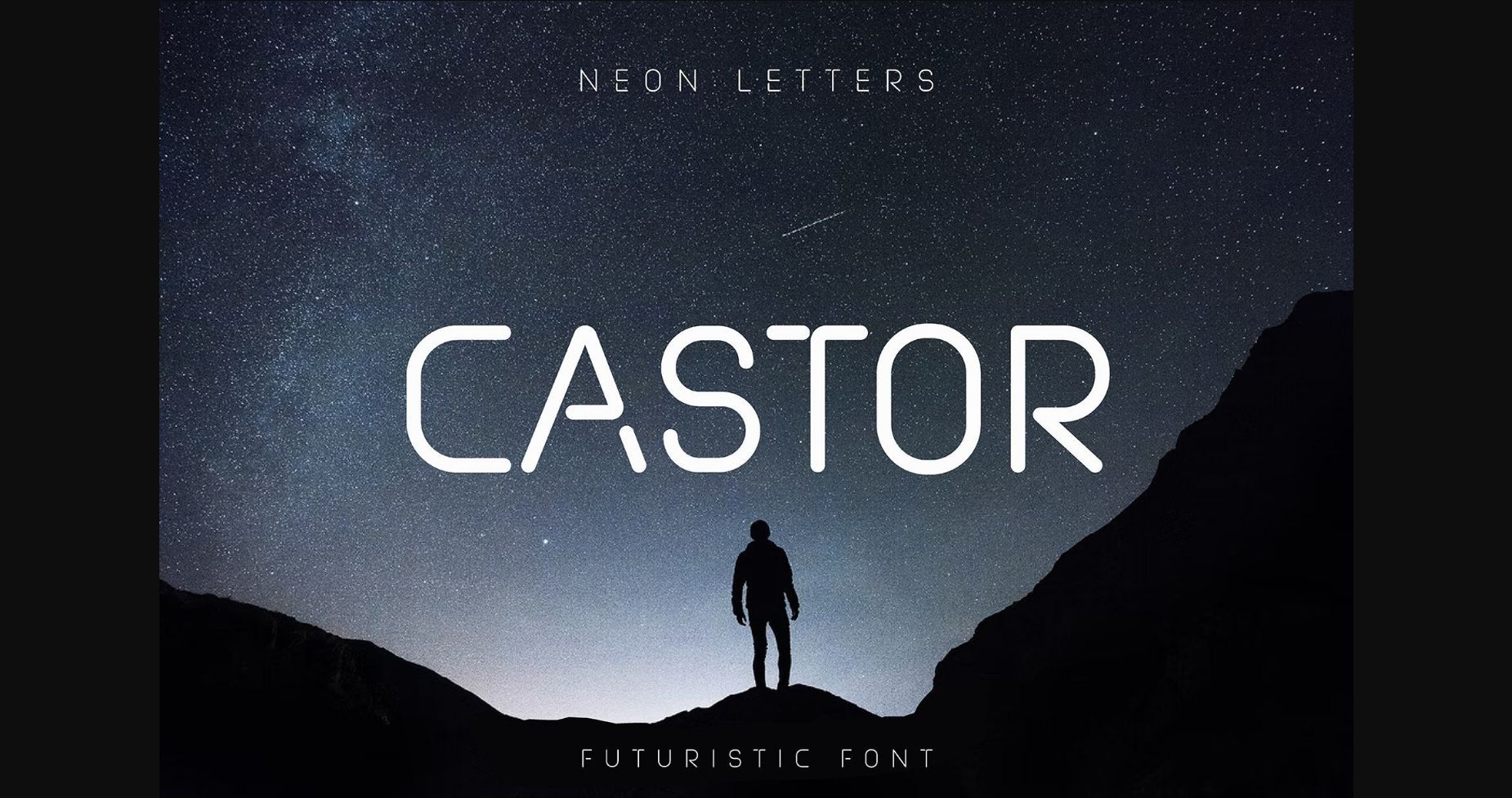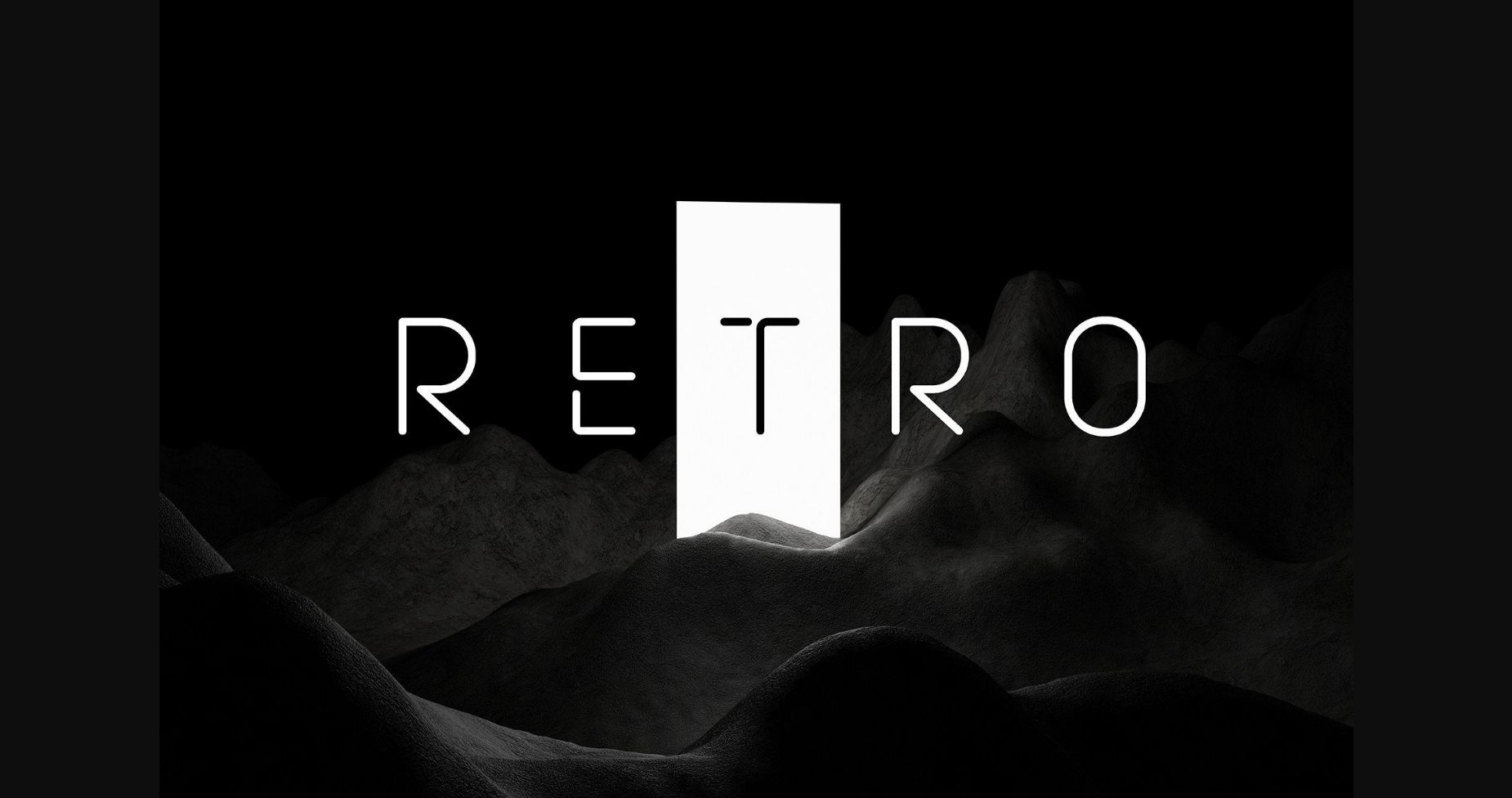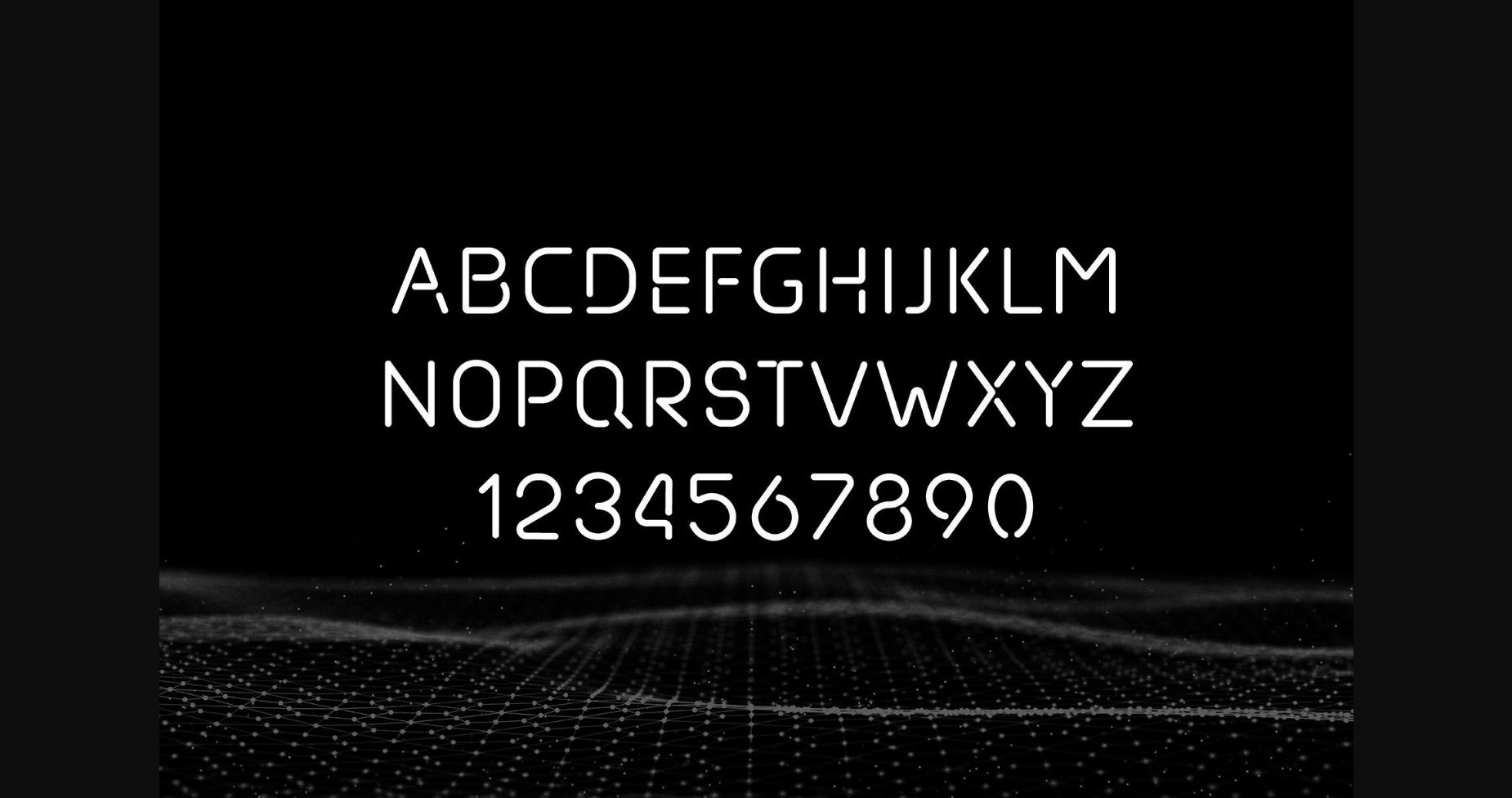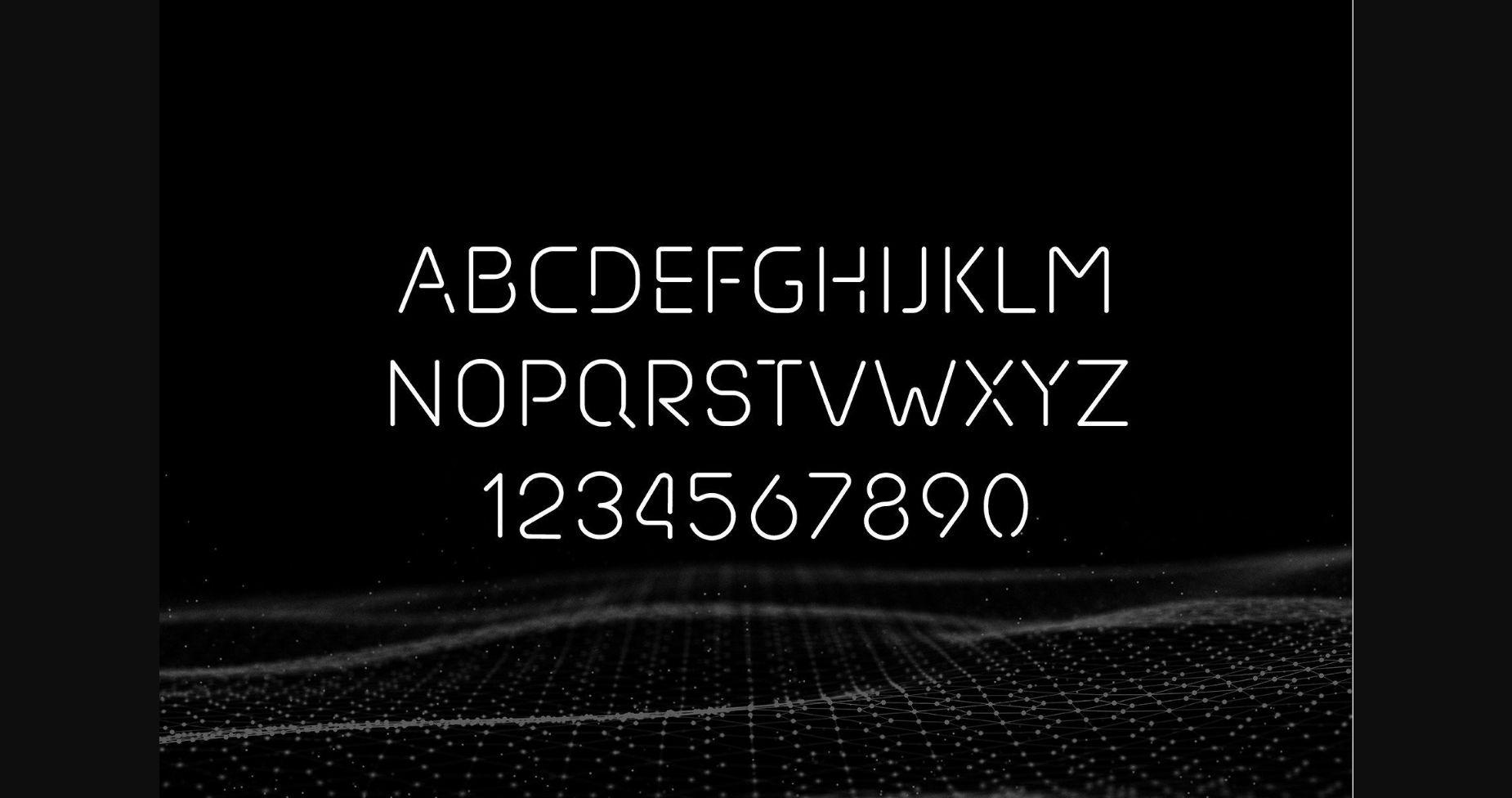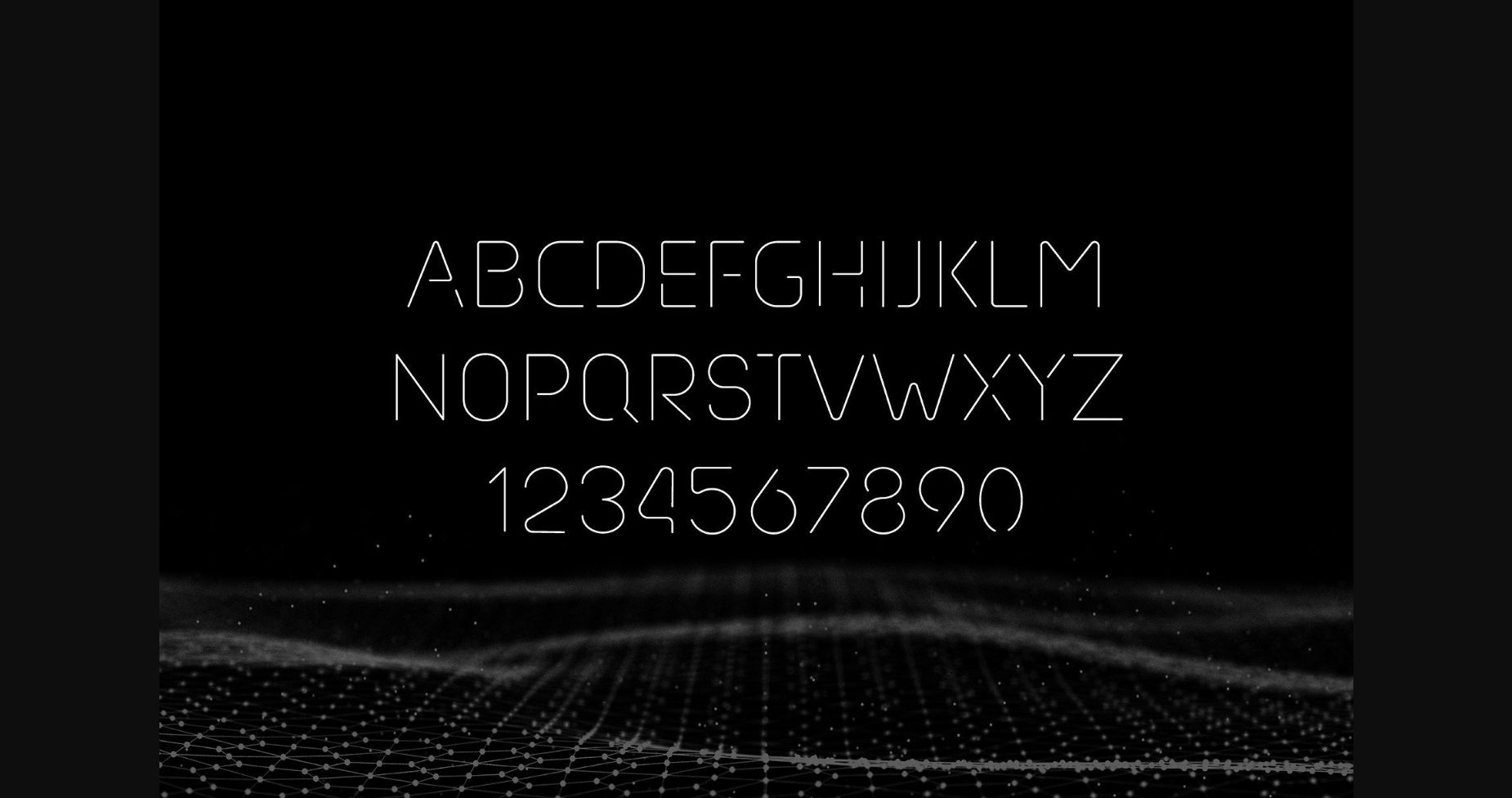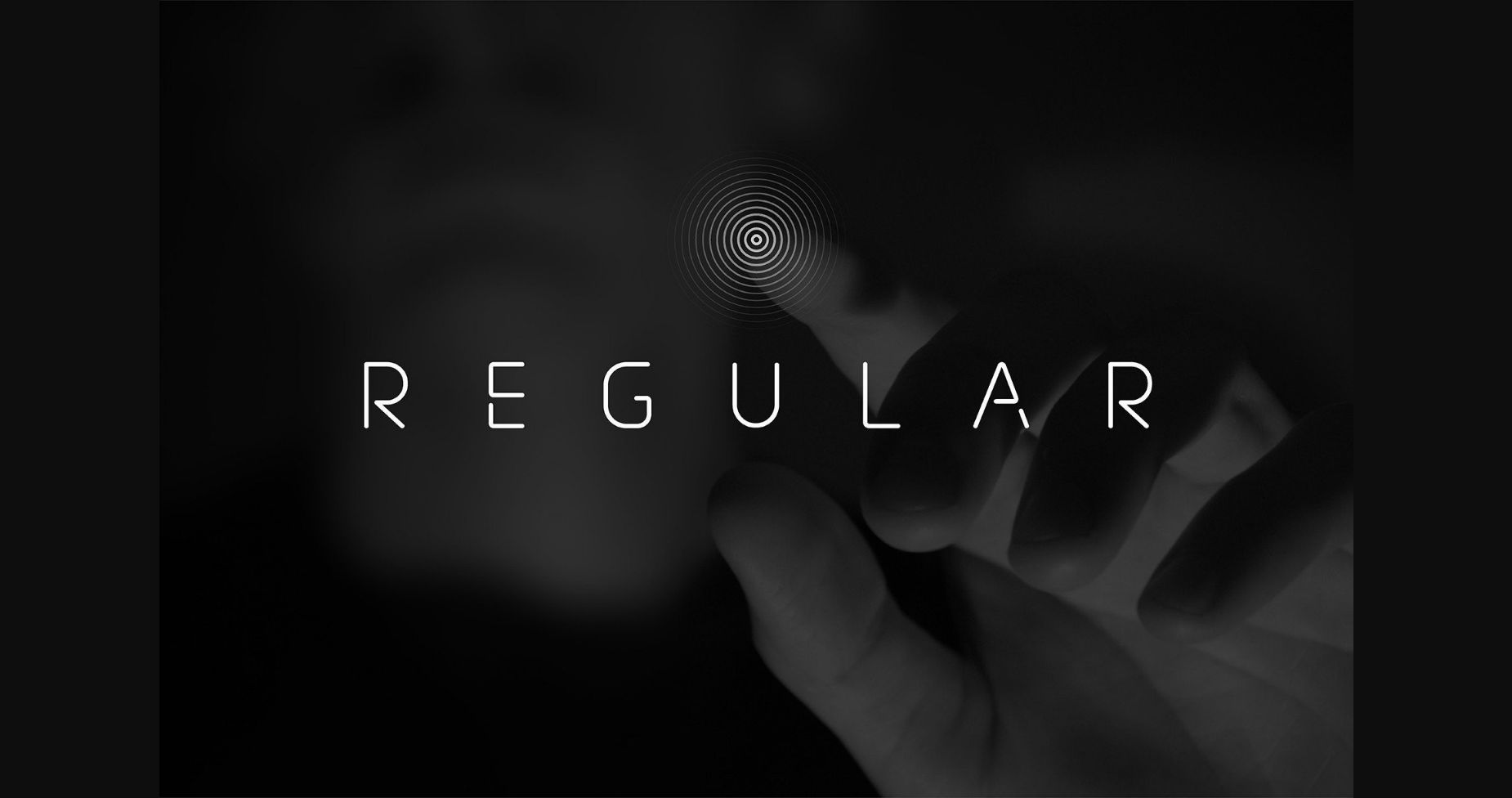
About Castor Font
Techno Futuristic Font.
Castor is a minimalistic modern font in retro 80s style. This unique sans serif can be used for any purpose, including creating logos or making headers. It is available in three thicknesses to fit your project requirements and make your design stand out!